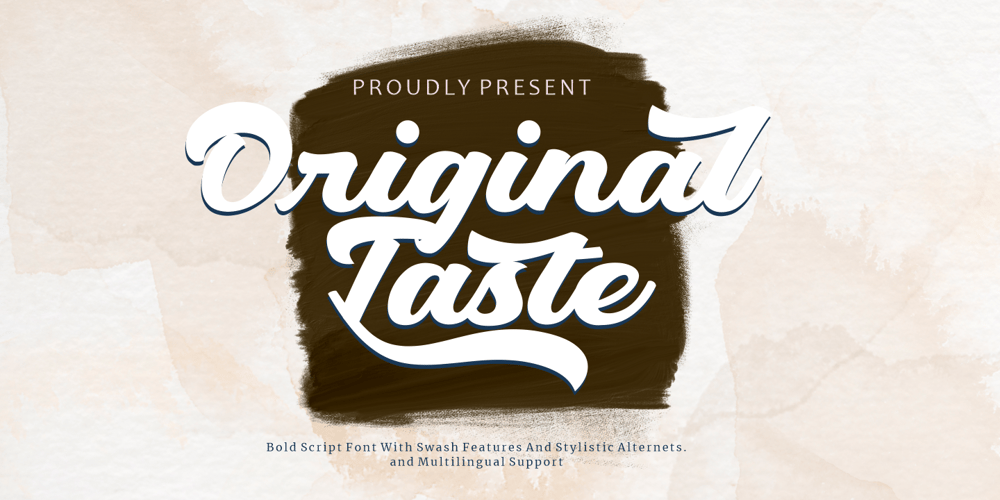
Original Taste Font Family was designed by Joko Setiono and published by Arttype7. Original Taste contains 1 styles and family package options. I hope you are very happy today.we want to introduce our newest font, which we named “ Original Taste font ”.This font is a very bold bold cript font and has cool alternets and swashes.original taste font.This font has a taste, old, modern and unique.